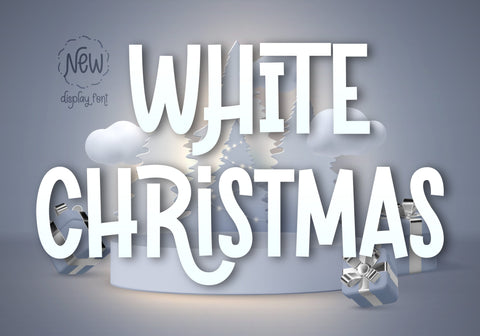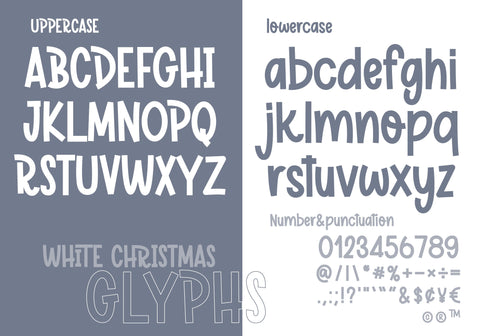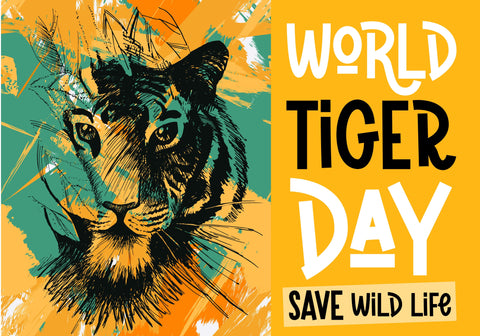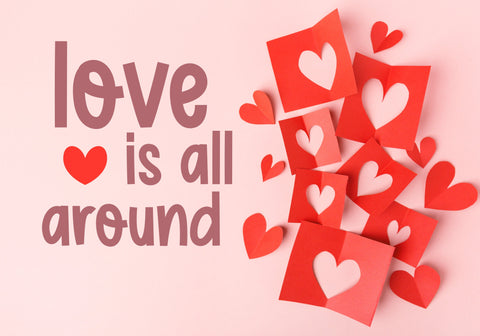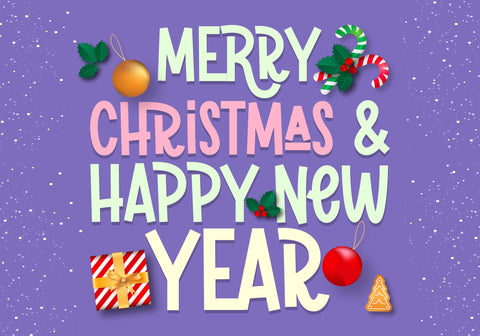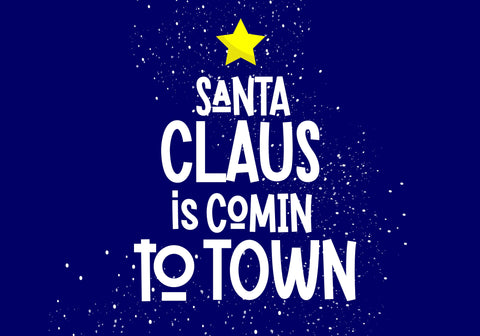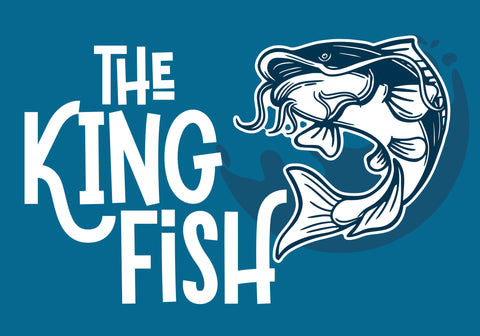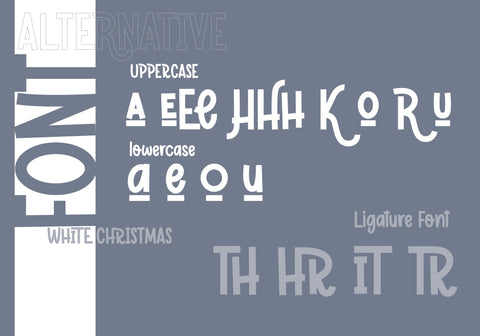
White Christmas
White Christmas is a lovely and sweet display font. No matter the topic, this font will be an incredible asset to your font library, as it has the potential to elevate any creation. This font is PUA encoded which means you can access all the glyphs and ligatures with ease!